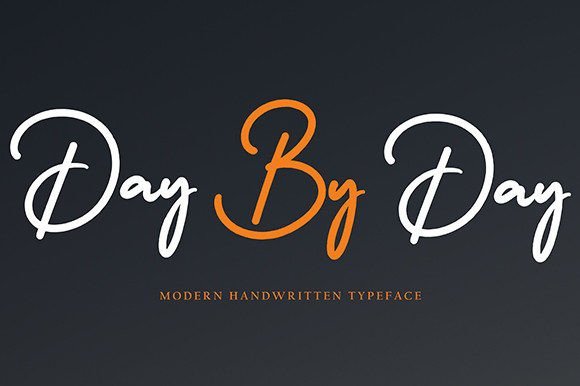
Discover the Timeless Charm of Day by Day Font
There’s something magical about sitting in a quiet coffee shop, surrounded by the hum of creativity, as you pour your heart and soul into a new design project. The blank page stares back at you, a canvas waiting for your brushstrokes. And then, it happens – a spark of inspiration strikes, and your vision begins to take shape.
For designers seeking to add a touch of elegance to their work, the Day by Day Font is a perfect companion. This flowing handwritten font boasts an unmistakable charm, making it a go-to choice for projects that demand a personal and timeless touch. Whether you’re crafting a wedding invitation, a branding package, or a social media graphic, the Day by Day Font is sure to elevate your designs and leave a lasting impression.
Day by Day Font Key Features
- Unique Characteristics: The Day by Day Font features a unique, hand-drawn design with a modern and playful aesthetic, making it perfect for use in creative and artistic applications.
- Script and Language Support: The font supports a wide range of languages, including Latin, Greek, and Cyrillic scripts, making it a versatile option for use in multilingual contexts.
- Font Weight and Style: The Day by Day Font is available in regular and bold weights, as well as italic and bold italic styles, providing users with a range of options to suit their design needs.
- Scalability: The font is designed to be highly scalable, making it suitable for use in a wide range of applications, from small text to large headlines and titles.
Review of Day by Day Font
I recently had the chance to work with the Day by Day Font, and I must say it’s a unique and interesting addition to any design project. ✨ The font’s modern and clean design makes it perfect for titles, headings, and any other text where you want to draw attention. The font’s high x-height and moderate stroke width give it a friendly and approachable feel.
One of the standout features of Day by Day Font is its excellent legibility, even at small font sizes. This makes it an excellent choice for web design, apps, and any other project where text will be viewed on a small screen. ✨ The font also comes in a range of weights, from light to bold, which allows for a lot of creative flexibility.
While Day by Day Font is an excellent choice for many projects, it does have some limitations. ⚠️ The font’s design may not be suitable for all types of text, such as body copy or paragraphs where readability is crucial. Additionally, the font’s modern design may not be to everyone’s taste, and some users may find it too trendy or gimmicky.
Overall, I would recommend the Day by Day Font for any project where you want to add a touch of modernity and style. While it may not be the best choice for every project, it’s a great addition to any designer’s toolkit. ✨ With its excellent legibility, range of weights, and unique design, it’s sure to add a lot of visual interest to your work.
Design Considerations
- Use for titles, headings, and other attention-grabbing text
- Perfect for web design, apps, and other small-screen projects
- Range of weights available for creative flexibility
- May not be suitable for body copy or paragraphs
- Modern design may not be to everyone’s taste
The Day by Day Font is ideal for:
- Creating visually appealing headings and titles.